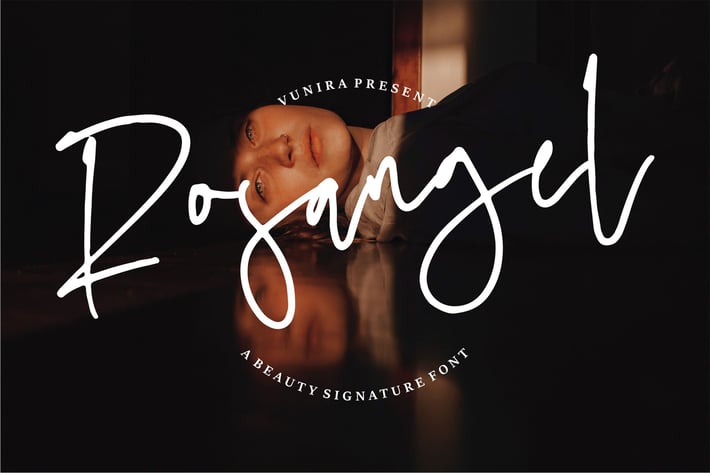
Rosangel | A Beauty Signature Font
Rosangel | A Beauty Signature Font with a calligraphy style, So beautiful on invitation like greeting cards, branding materials, business cards, quotes, posters, and more!